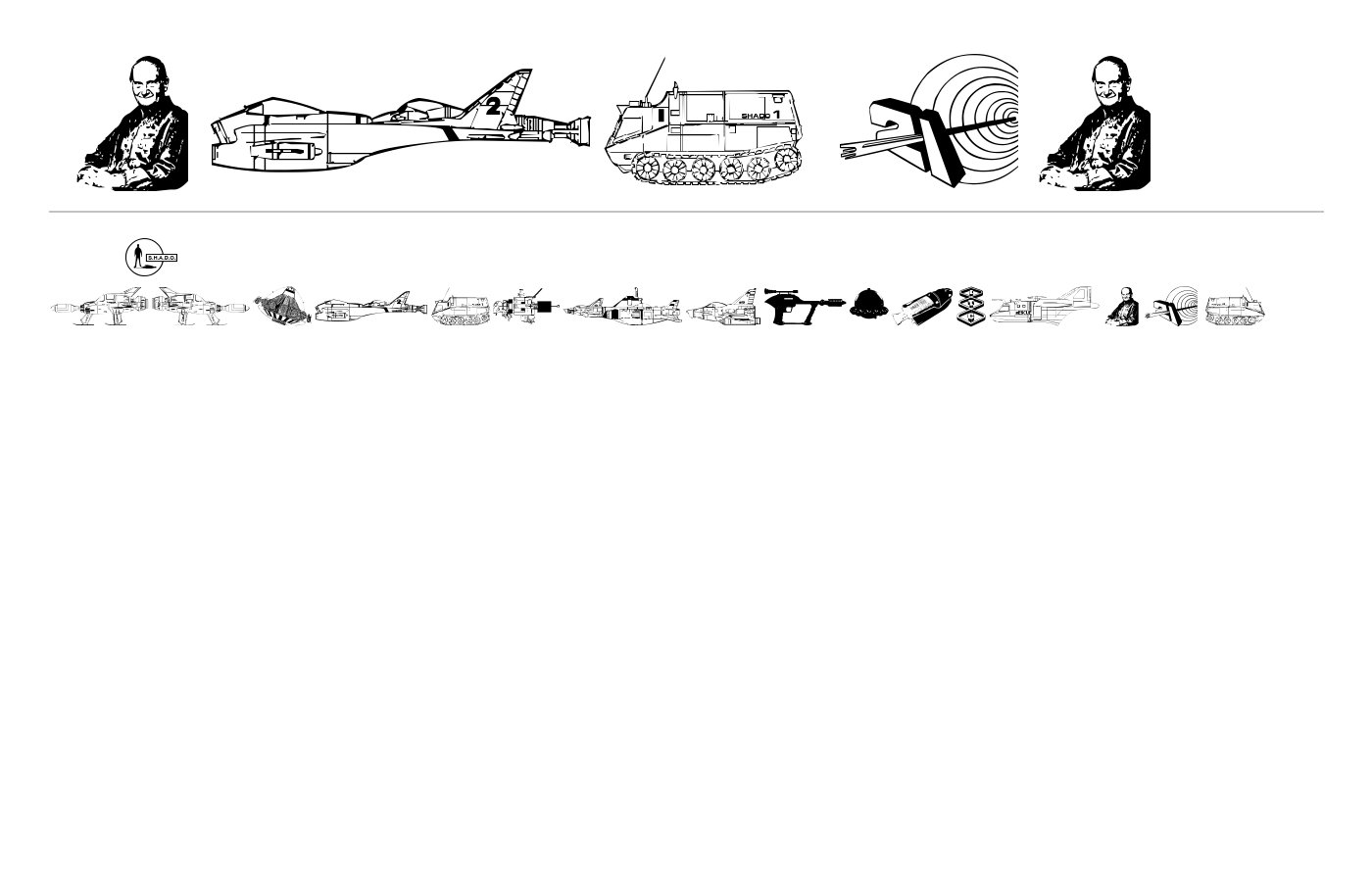
Anderson UFO Font is a novelty pictorial font featuring intricate black-and-white illustrations inspired by retro sci-fi and military themes rather than traditional letterforms. This playful and unique font showcases detailed images of aircraft, vehicles, and gadgets, making it perfect for creative design projects that seek to evoke a nostalgic or futuristic vibe. It works best in logos, posters, or themed branding where visual storytelling and distinctive, eye-catching elements are desired.
Anderson UFO Font
About Anderson UFO Font